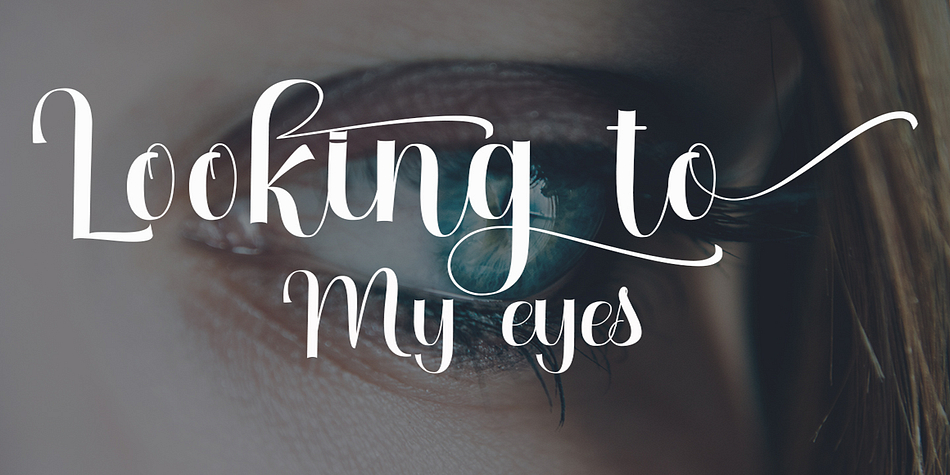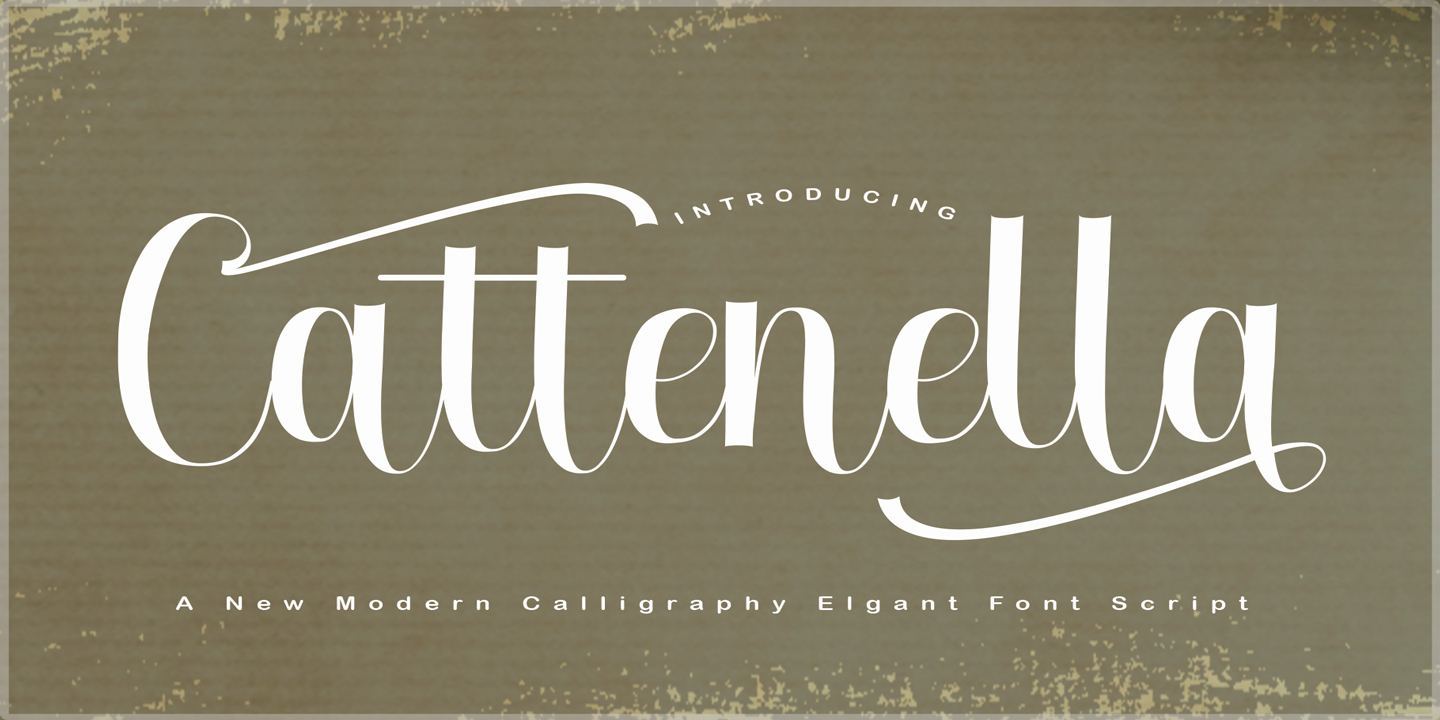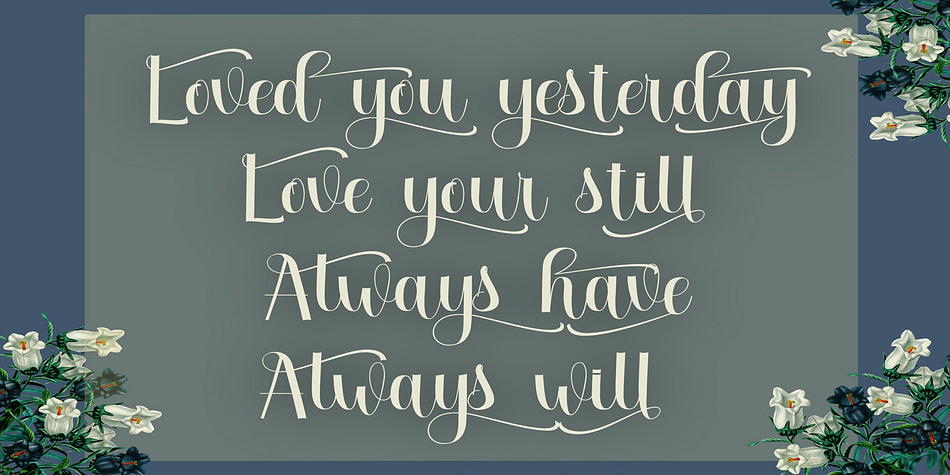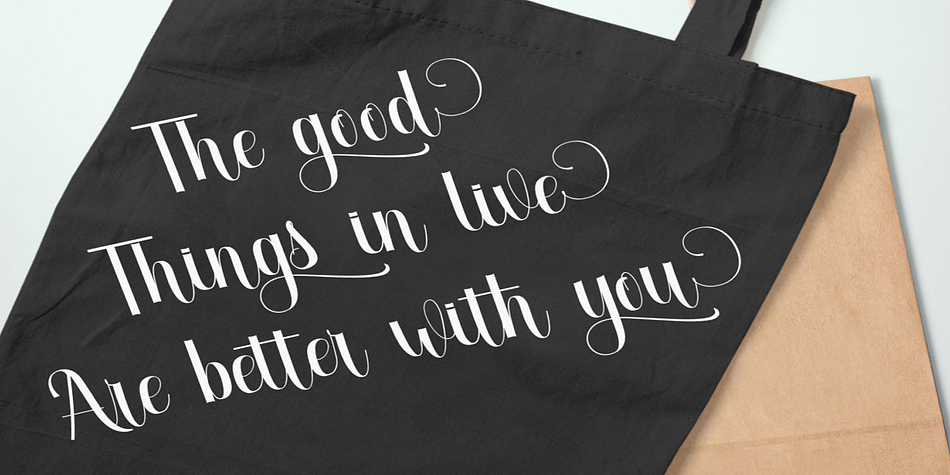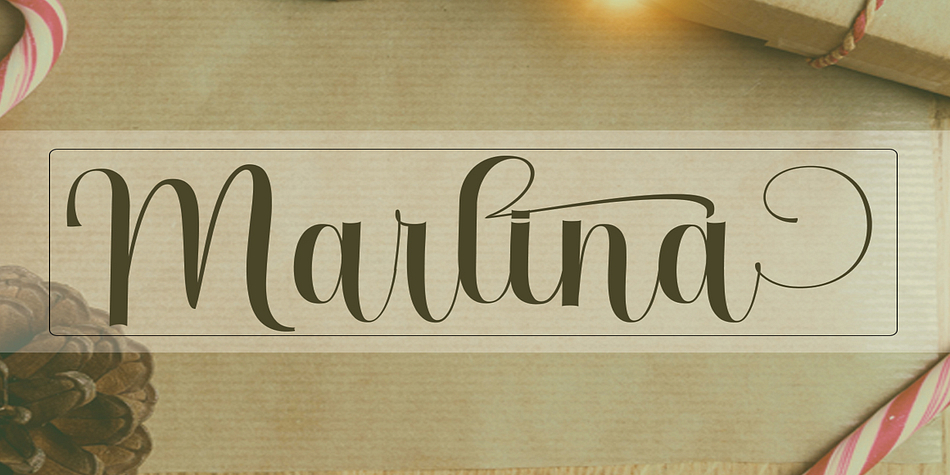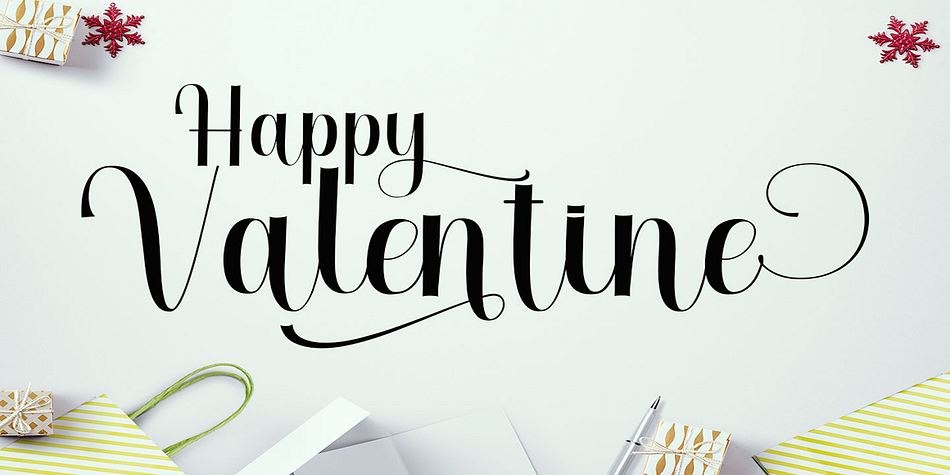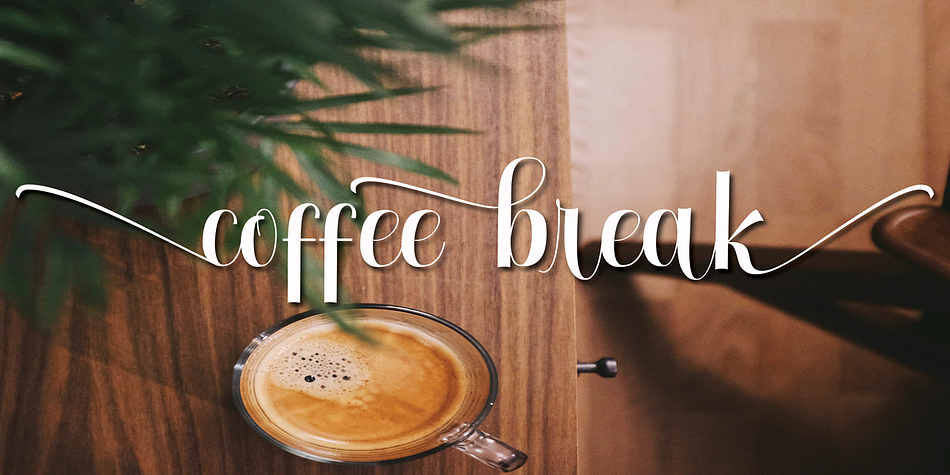
Cattenella
Cattenella is a display sans, modern calligraphy and script font family published by pollem.Co.
Cattenella Script
Cattenella Font Script regular stylish calligraphy that have a varied base line, fine lines, classic and elegant touches. Can be used for various purposes. Such as title, signature, logo, wedding invitation, t-shirt, letterhead, nameplate, label, news, poster, badge etc.
Cattenella Script displays 424+ glyphs and 205 alternate characters. Includes initial letters and terminals, alternatives, ligatures and multiple language support.
The Features of this fonts is:
* Standart ligatures
* Stylistic Alternates
* Swash